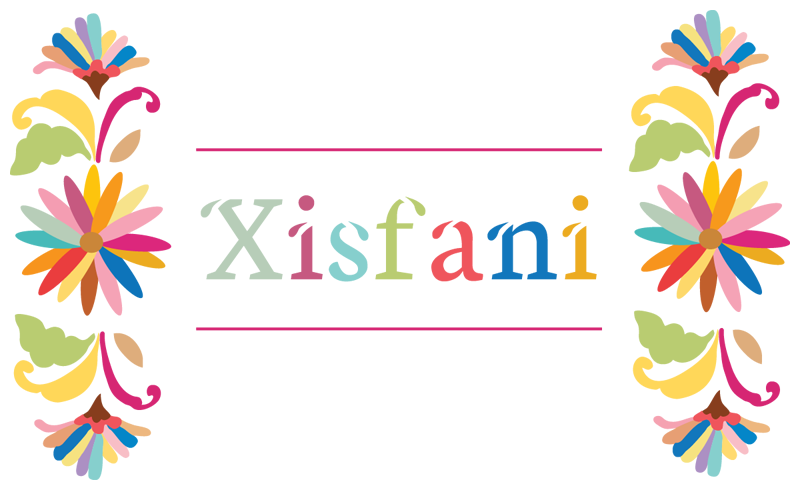
Categories | Foreign look, Mexican |
This typography is based on the mexican culture called OtomÃ. It's name means corn leaf , which is used in their textile designs. Hope you enjoy this playful type. |